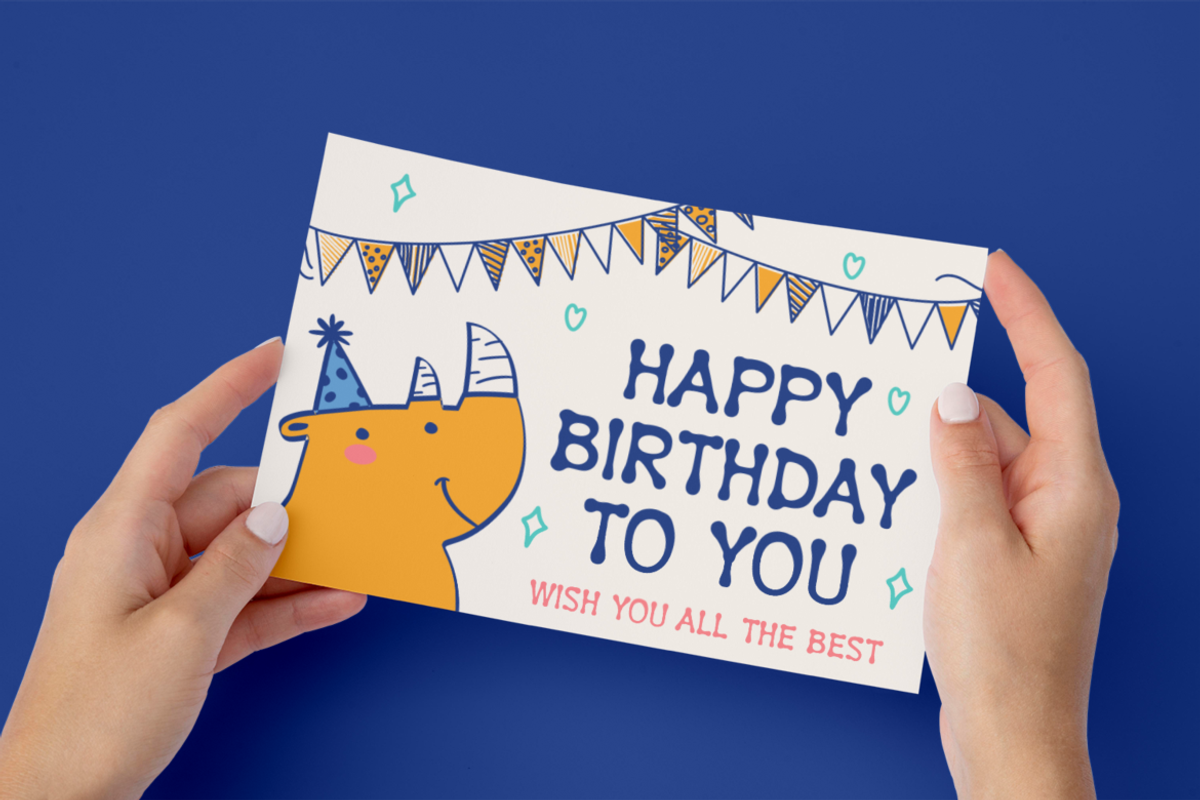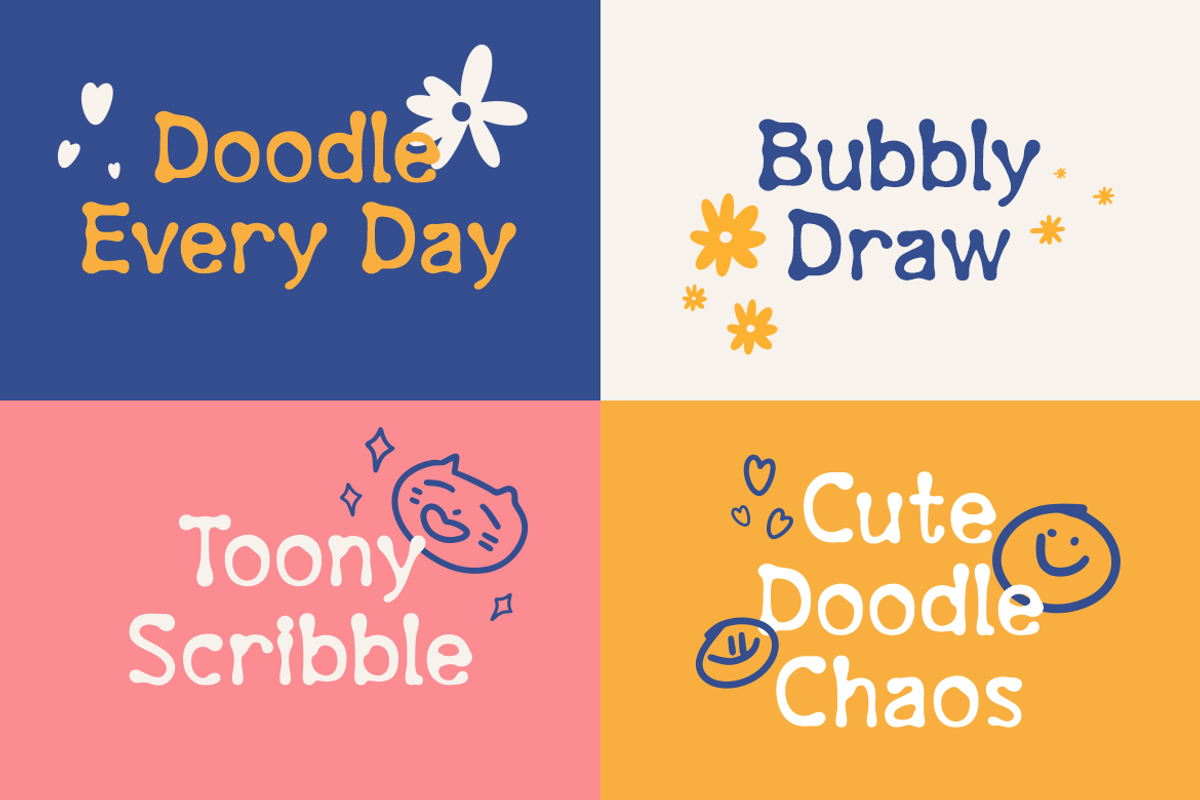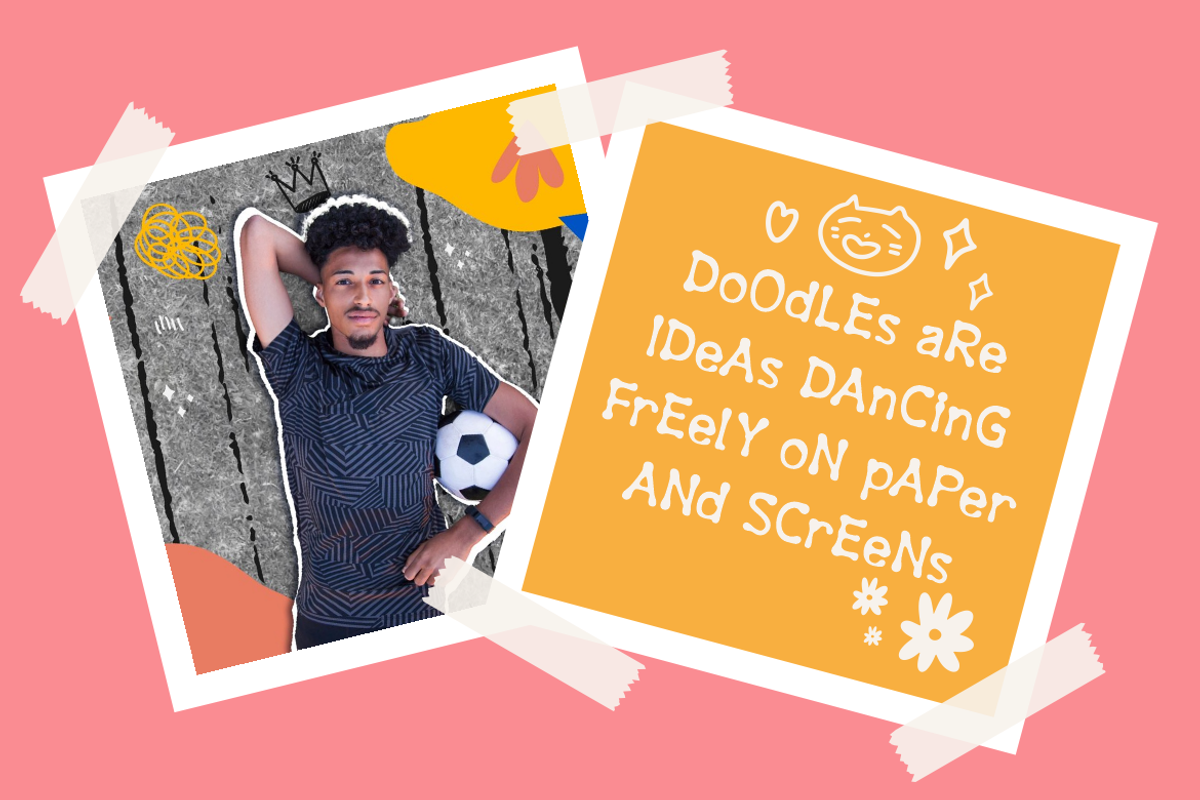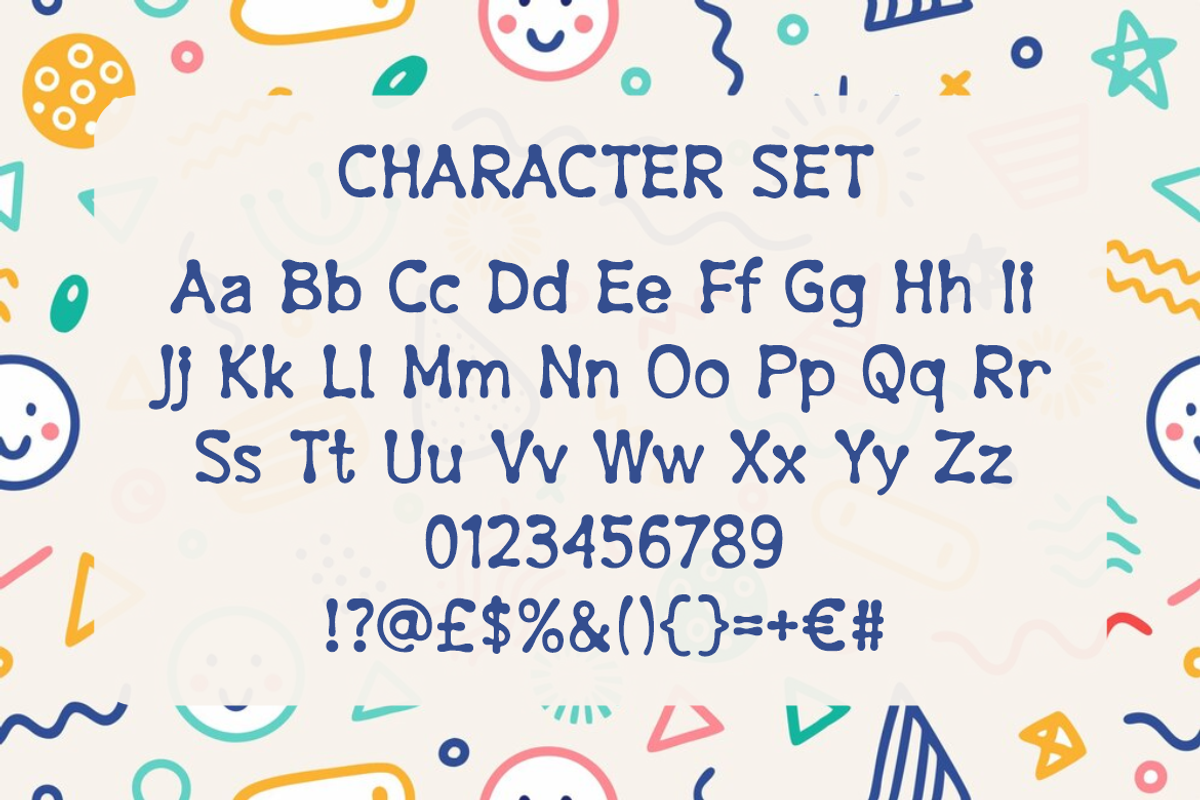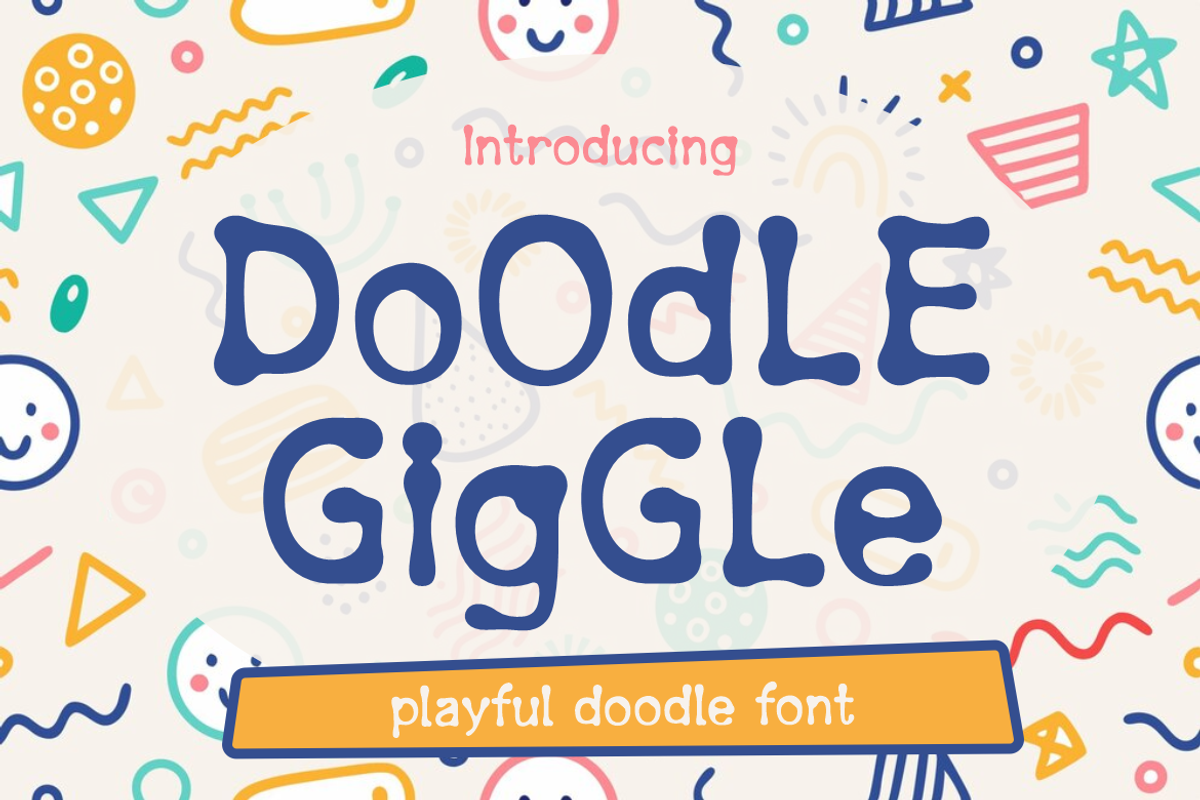
Doodle Giggle - Playful Doodle Font
Introducing Doodle Giggle, a delightful display font that perfectly captures the playful spirit and innocence of children's doodles. Designed with a charming, freehand style, each letter appears organically shaped and whimsically imperfect, reminiscent of cheerful drawings made by young hands. The quirky curves, irregular strokes, and bubbly shapes of this font evoke joyful spontaneity, making it the ideal choice for creating designs that resonate with kids and bring smiles to adults. Its friendly layout, coupled with an engaging and approachable aesthetic, ensures readability and immediate visual appeal across various media.
Doodle Giggle is versatile and creatively vibrant, perfect for crafting, logo design, birthday invitations, playful packaging, and children's branding. Its cheerful demeanor also suits posters, stickers, magazine covers, film titles, greeting cards, and educational materials. Whether you are designing fun stationery or eye-catching business materials aimed at parents and kids alike, this font offers endless possibilities to inject personality and warmth into your projects. Bring your designs to life and inspire endless giggles with the charming, handmade authenticity of Doodle Giggle.